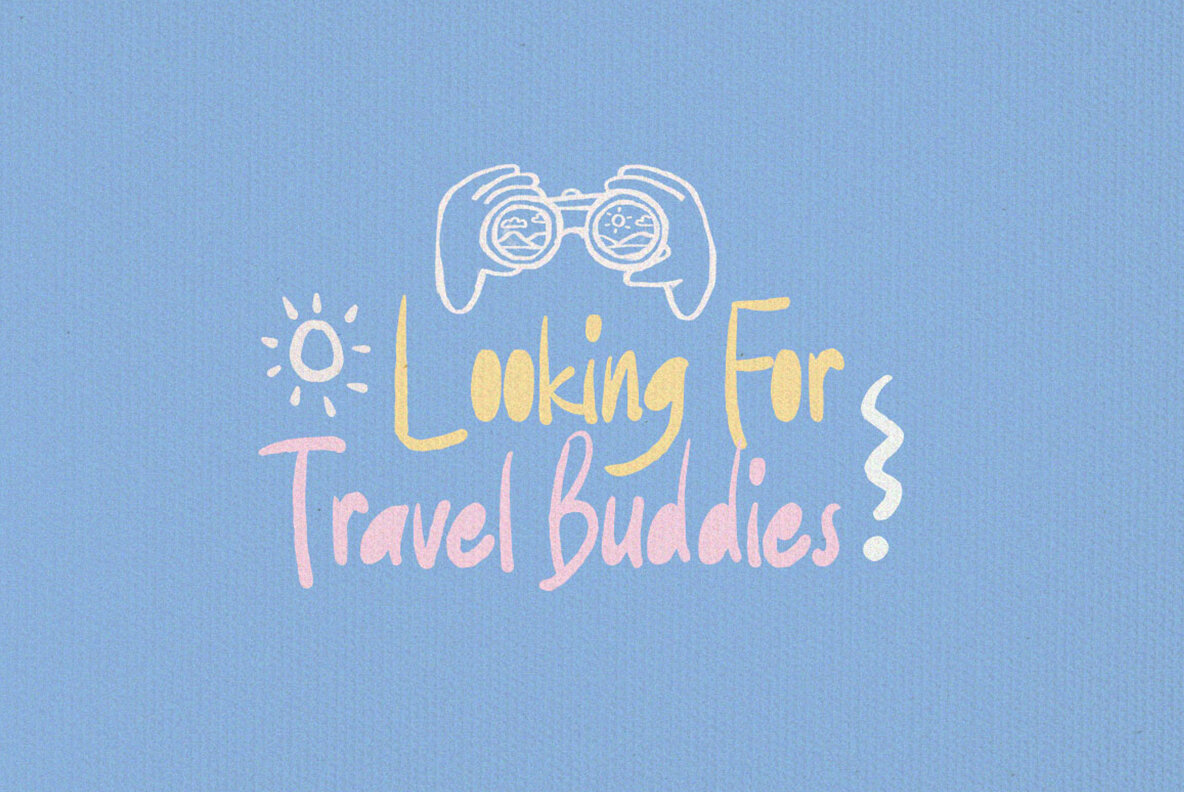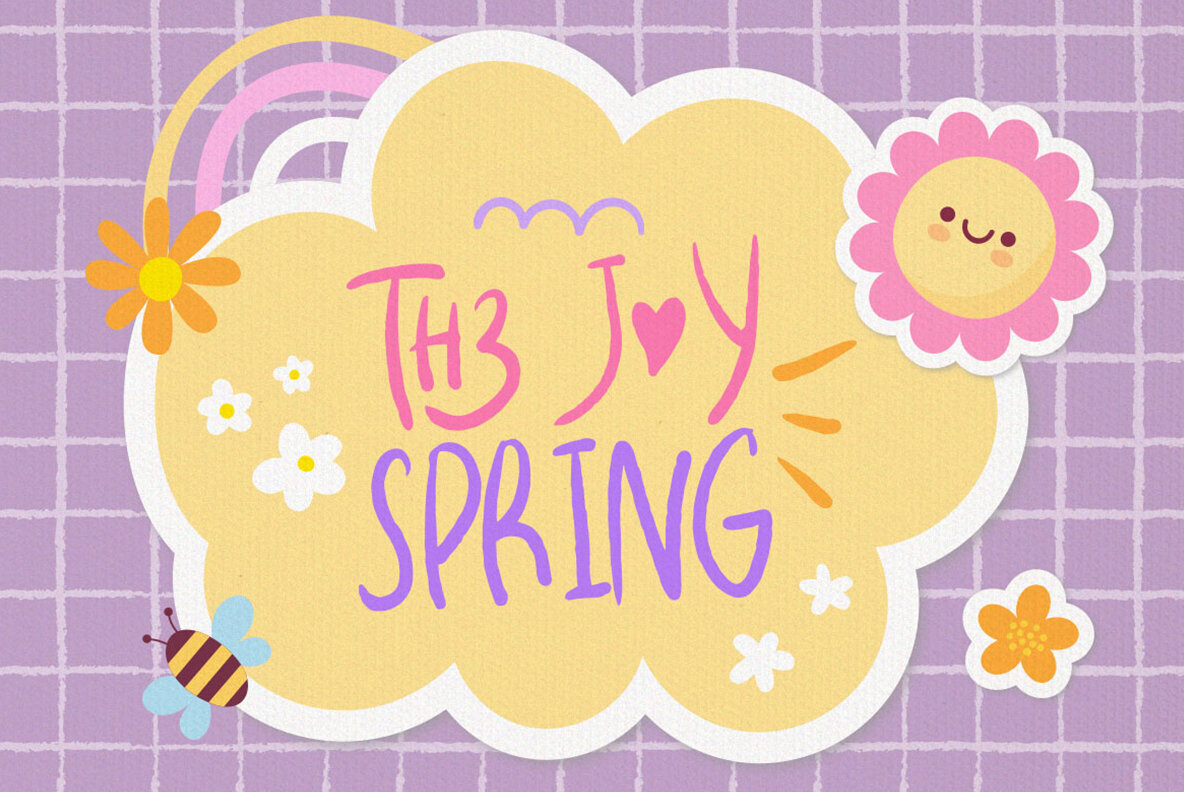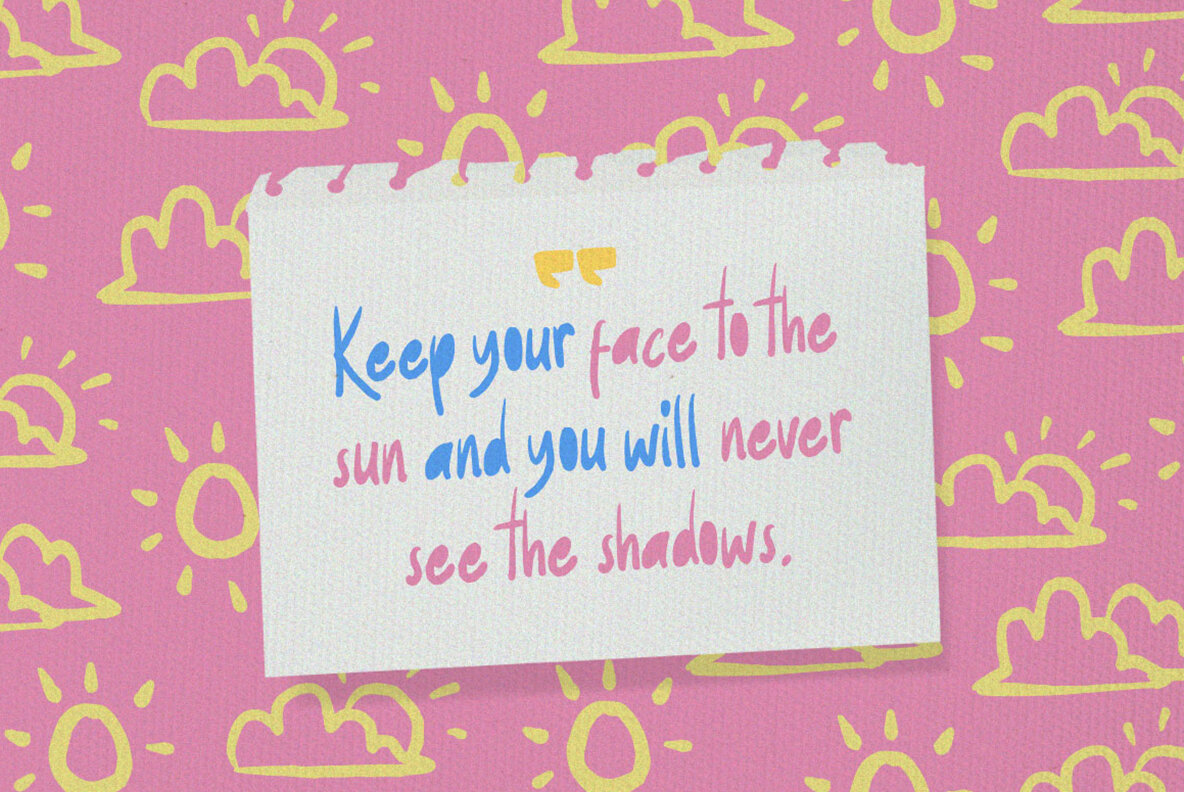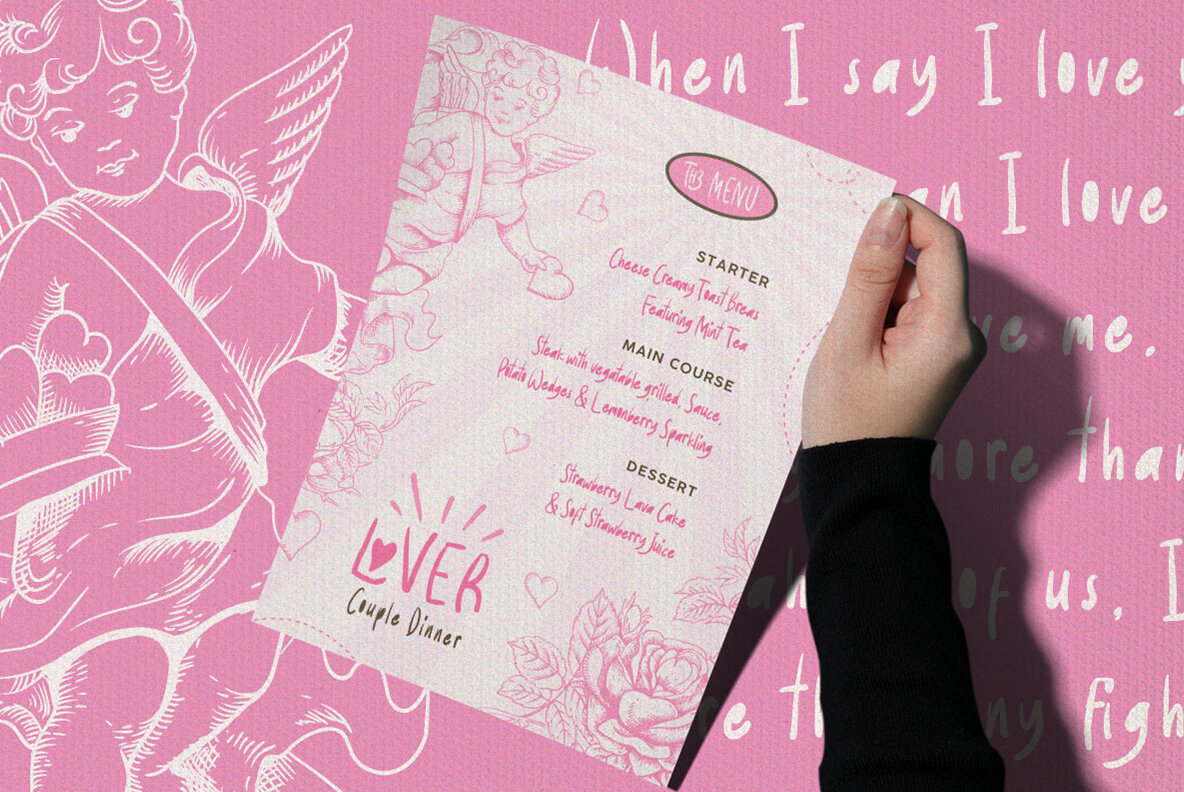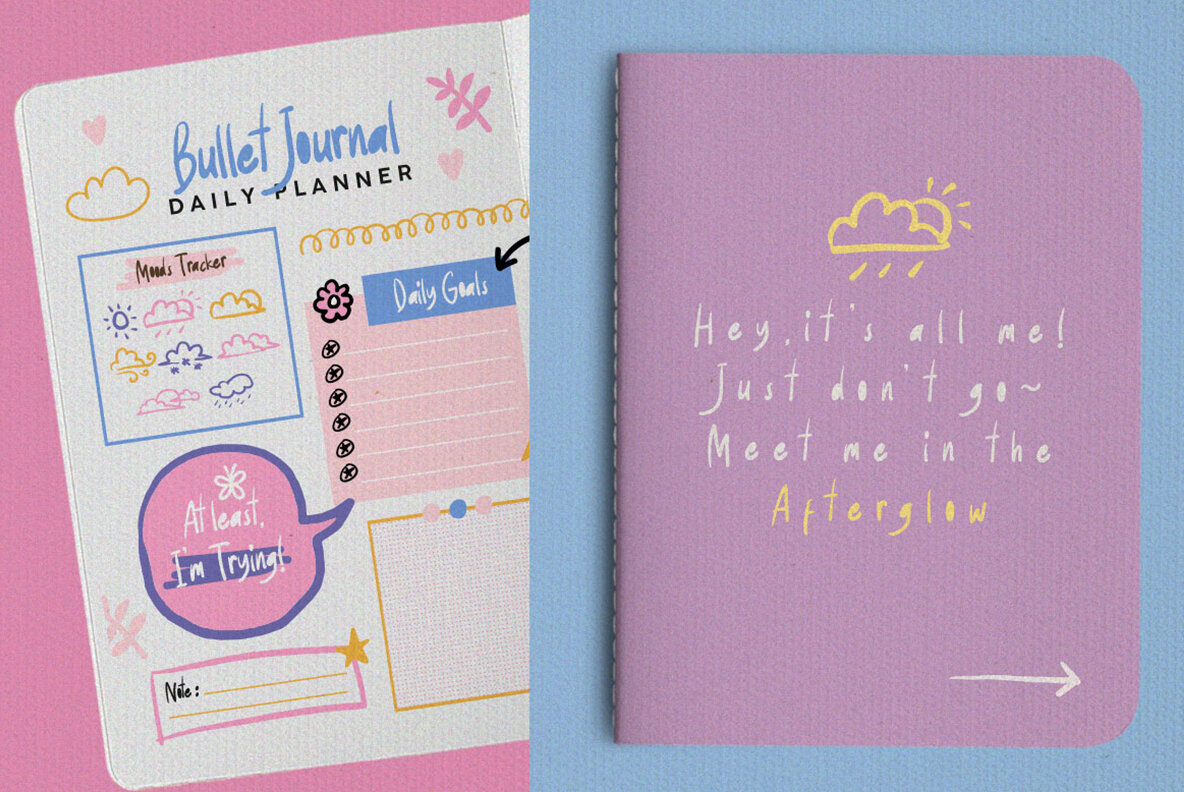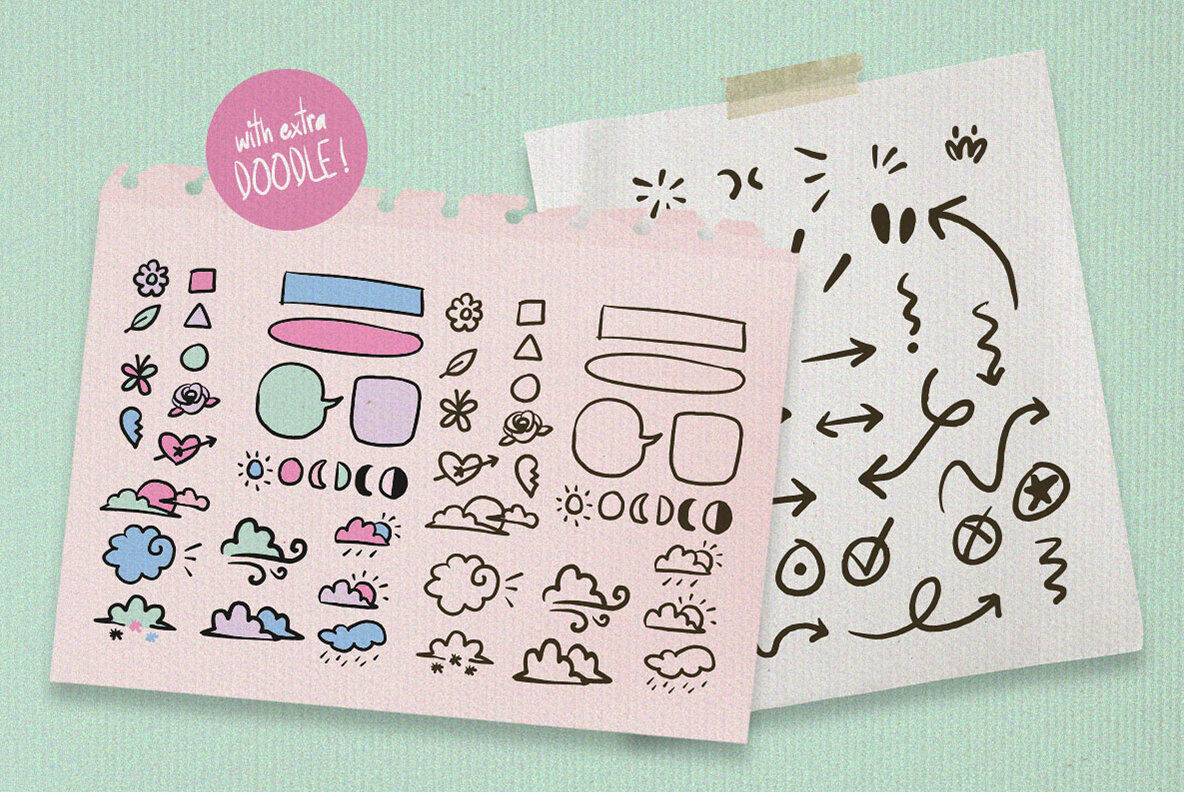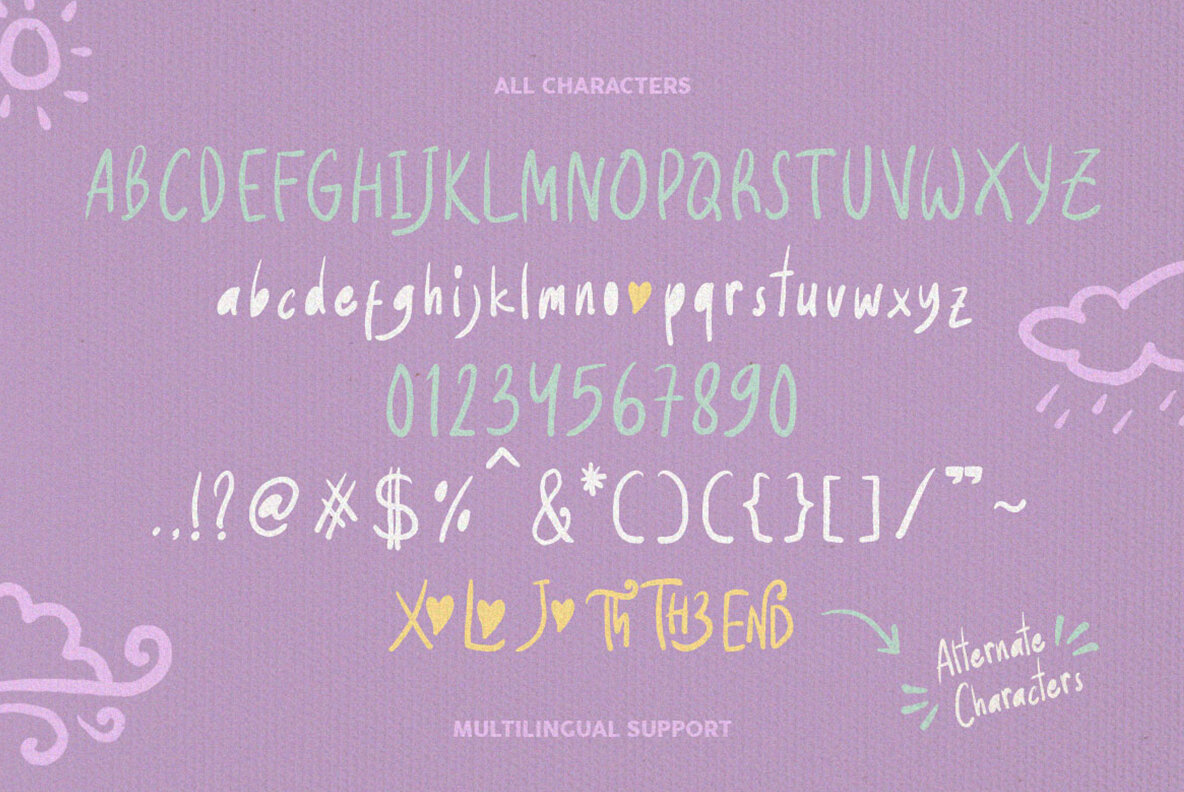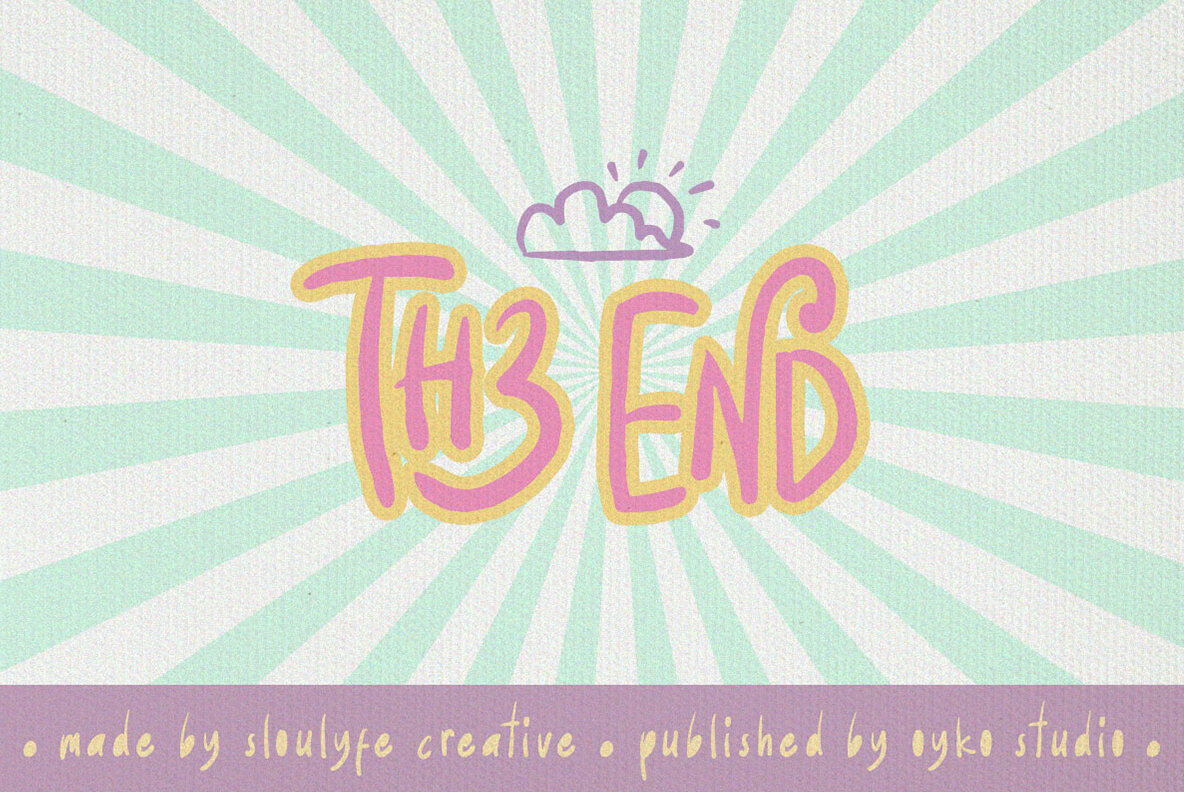
Doodle Joy Font
Dive into boundless creativity with Doodle Joy – the cutest handwriting font in town! This adorable handwriting font comes with a delightful bonus of doodles, elevating your designs to a new level of charm. Its carefree strokes and bubbly character make it perfect for a range of purposes, from crafting journaling masterpieces to adorning t-shirts, mugs, posters, logos, and beyond. Let Doodle Joy bring a touch of whimsy to your creations and watch your designs come to life effortlessly! Features: